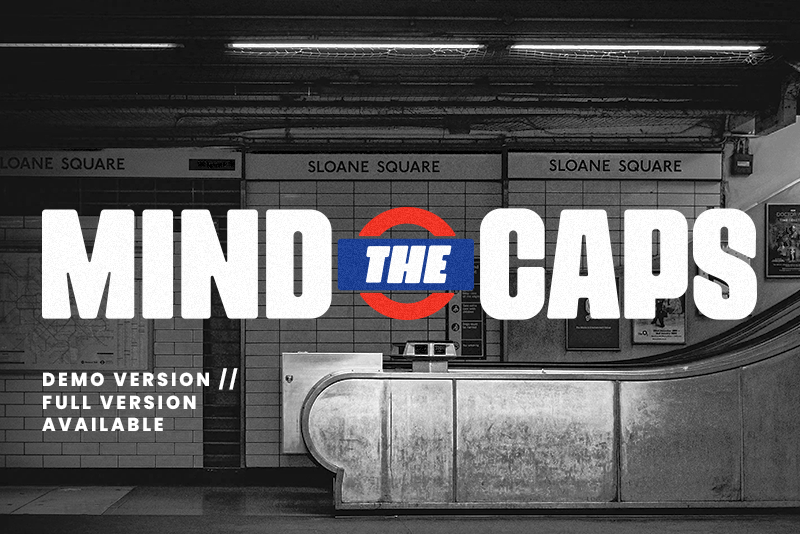
Preview and download Mind The Caps Font. Created by Shaped Fonts in Basic Sans serif styles with Free for personal use license.
Mind the Caps - DEMO VERSION LONDON, BABY! After missing London so much I've decided to pay tribute to the infamous "Mind the Gap" Sign, but this time it's all about CAPS. Enjoy a FREE demo for our new & ALL-CAPS display font! Its smoothness and rounded edges present the font with a new, unique character. At the same time you can use the font for many ways and it's always an eye-catcher. If you like this demo you can also buy the full version which includes numbers, symbols, special characters and language support for most latin based languages. Get it today at: www.shapedfonts.com/caps Please Note: This font is free for personal use ONLY. If you're planning to make profit please buy a standard license. If you're company or client has more than 10 employees please contact us directly: license@shapedfonts.com Thanks! |